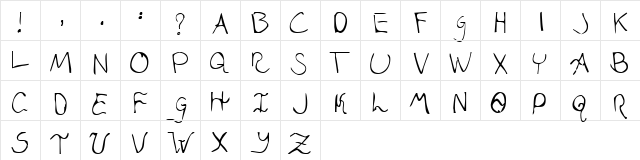
Jasona Davina Normal
Design Context for Jasona Davina Typeface
Jasona Davina is a composed and adaptable typeface that performs quietly and consistently across a wide range of design contexts.